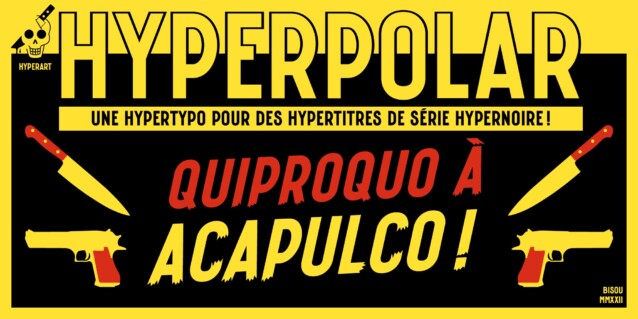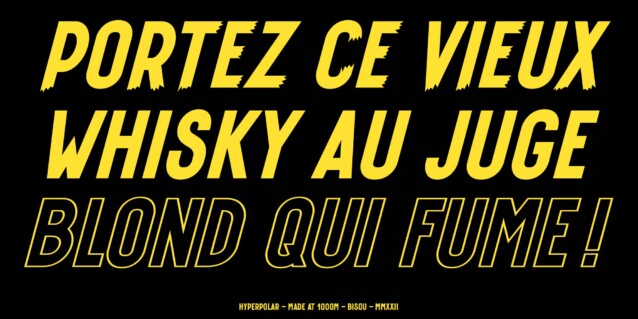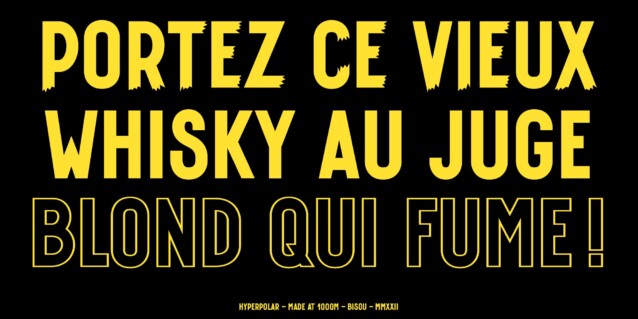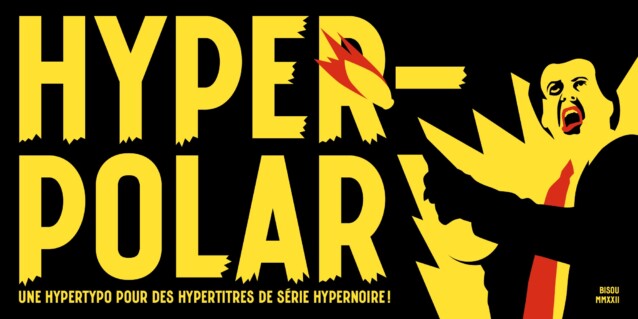
Hyperpolar Font
Hyperpolar Font is a stylish sans-serif display font that embodies the essence of display fonts with a clean, modern aesthetic. Hyperpolar was designed from the ground up to have a strong impact. Its retro 50s detective novel style makes it the best book cover. It goes perfectly with short advertising texts like a trench coat or a smoking pipe store. Simply hang it above a video store for movie buffs to enjoy.